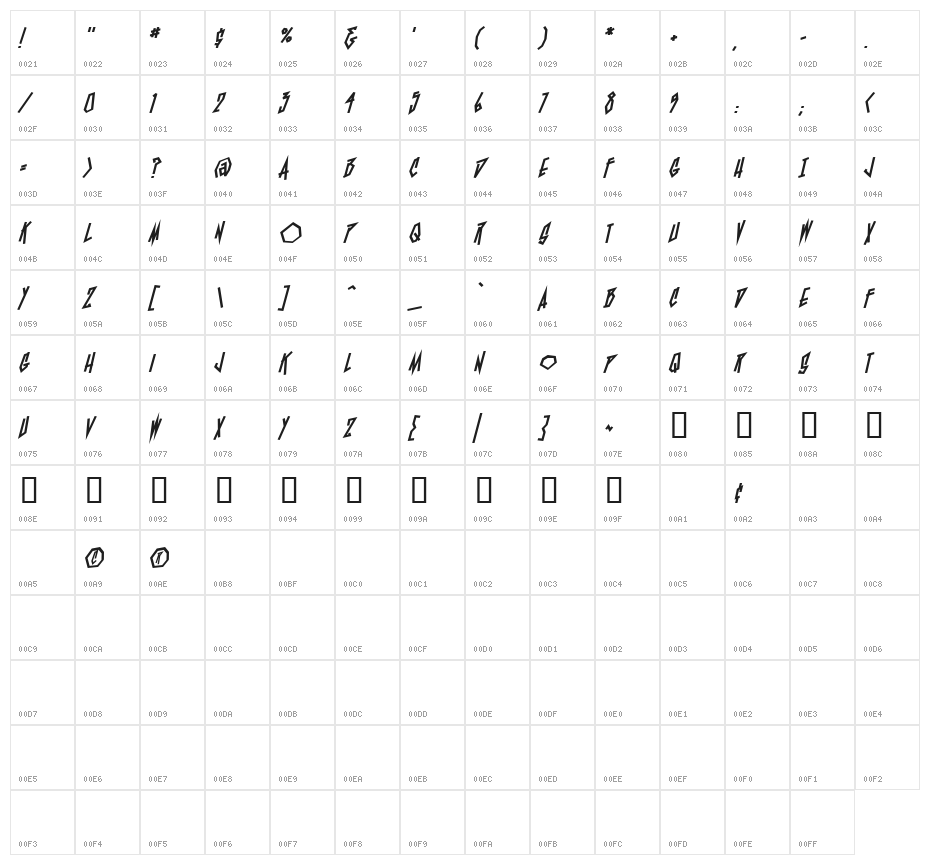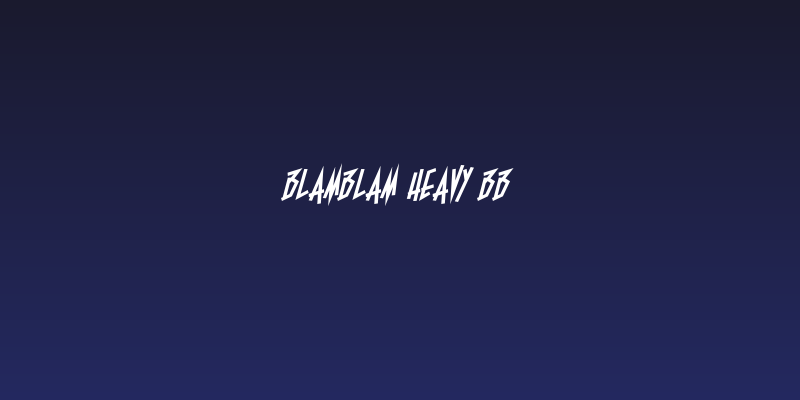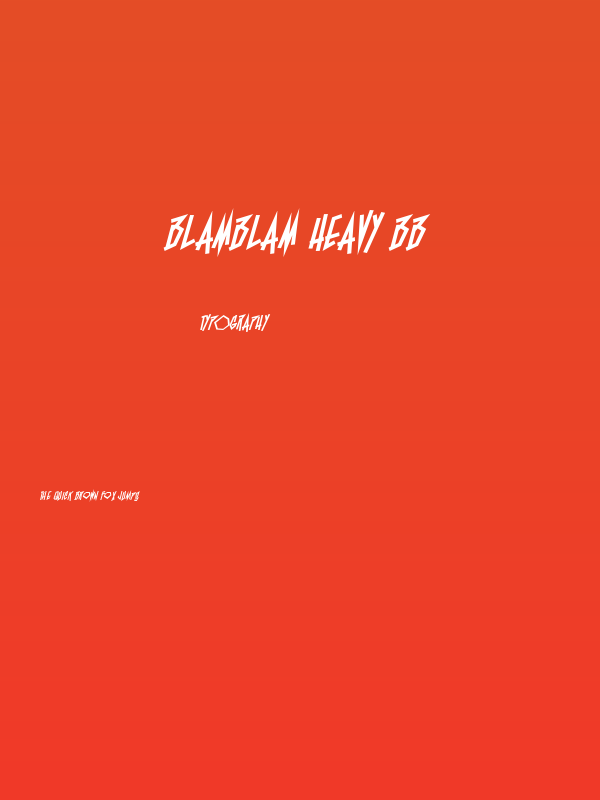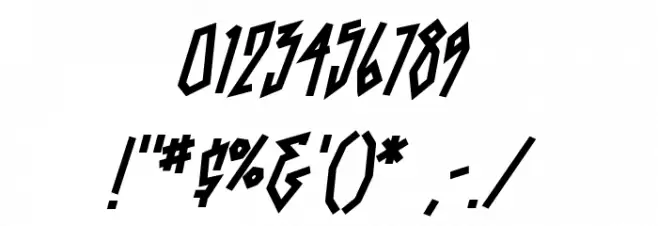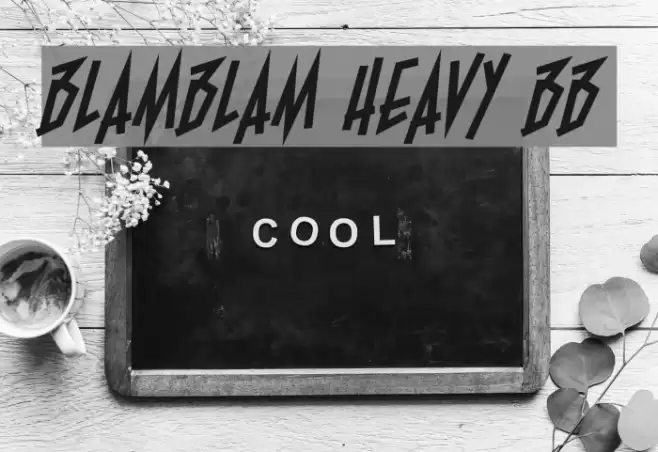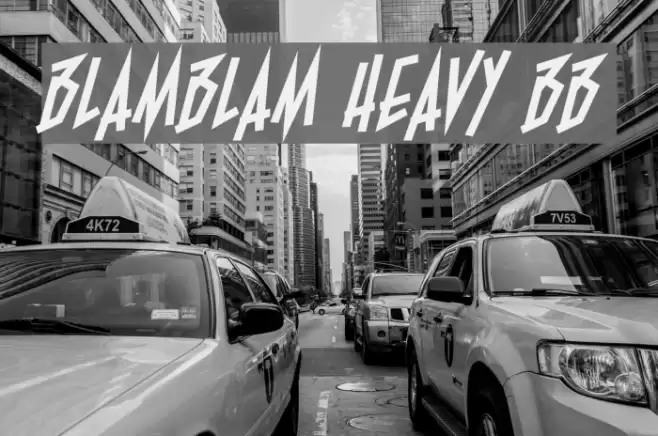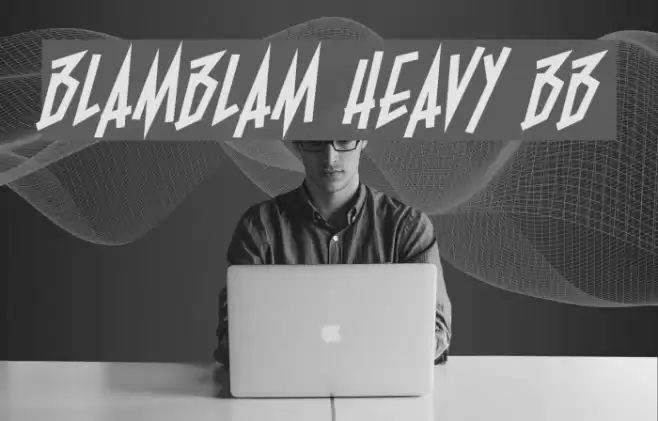
BlamBlam Heavy BB Font
BlamBlam Heavy BB Description
This font features a bold and dynamic style with sharp, angular edges and a sense of movement. The characters are heavily stylized, giving an impression of speed and energy. The uppercase and lowercase letters maintain a consistent design, with exaggerated points and slashes that create a striking visual impact. Numbers and special characters follow the same aesthetic, ensuring a cohesive look across all elements. The font's aggressive and edgy appearance makes it ideal for projects that require a strong and memorable visual statement.
| Use Case | Logos, Headlines, Posters |
| Proposed Projects | Ideal for music album covers, sports team logos, action movie posters, and video game titles. |